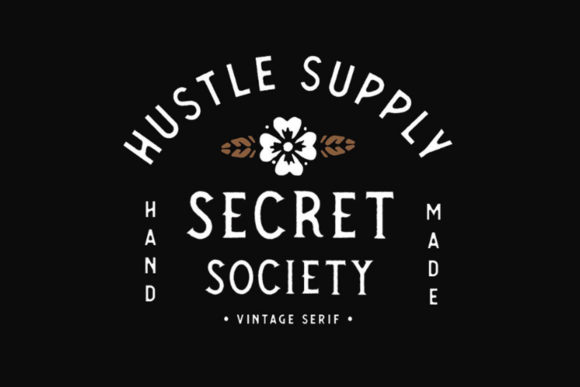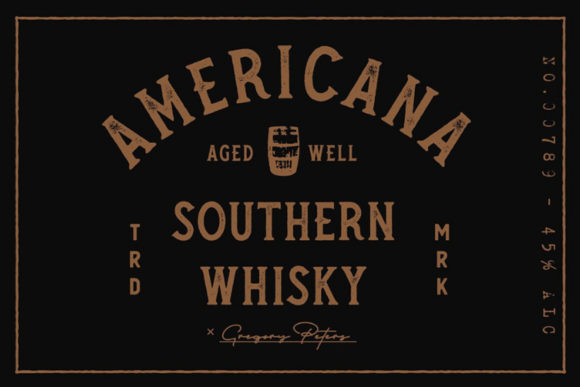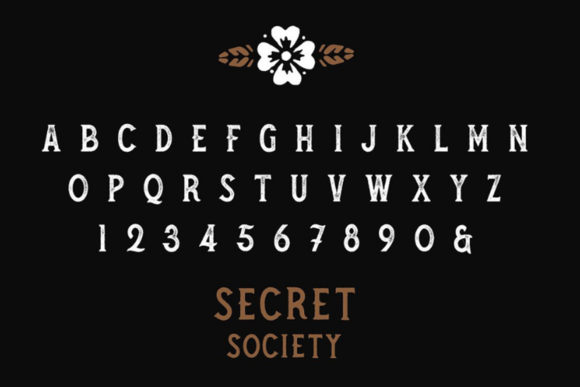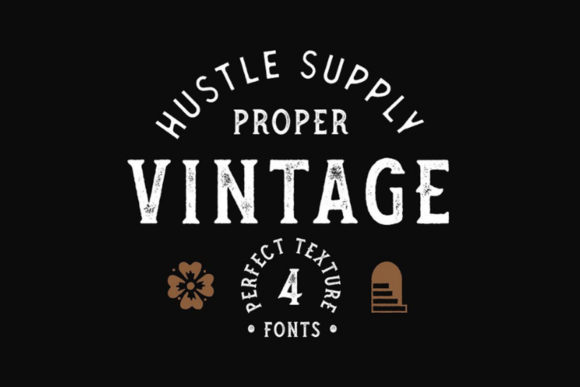
Secret Society Font
Secret Society feels playfully nostalgic and delivers an incredible vintage aesthetic. Use it to add that special retro touch to any design idea you can think of!